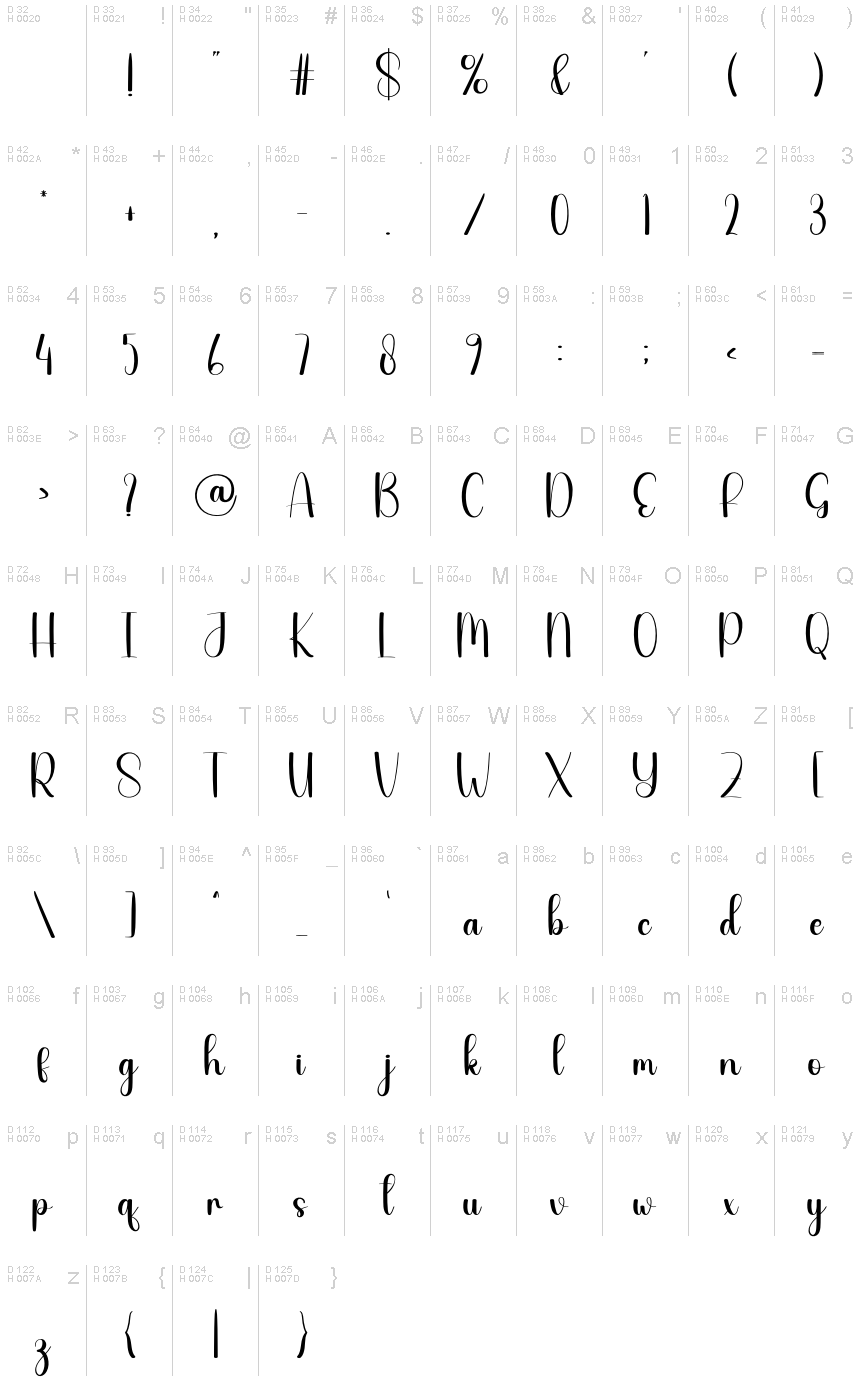
Wedding Valentine
Wedding Valentine is a captivating handwritten font that exudes romance and elegance. Crafted by the talented designer Andi Moz, this font showcases a smooth, flowing script with delicate flourishes and a touch of whimsy.
The interplay of thick and thin strokes, along with the graceful, interconnected letters, creates a sense of effortless sophistication. This font is particularly well-suited for wedding invitations, love letters, and other personal stationery, where its distinctive character can add a touch of timeless charm.
Its versatility extends to various design projects, from branding and packaging to social media content and editorial layouts, where it can lend a touch of refined sentiment.